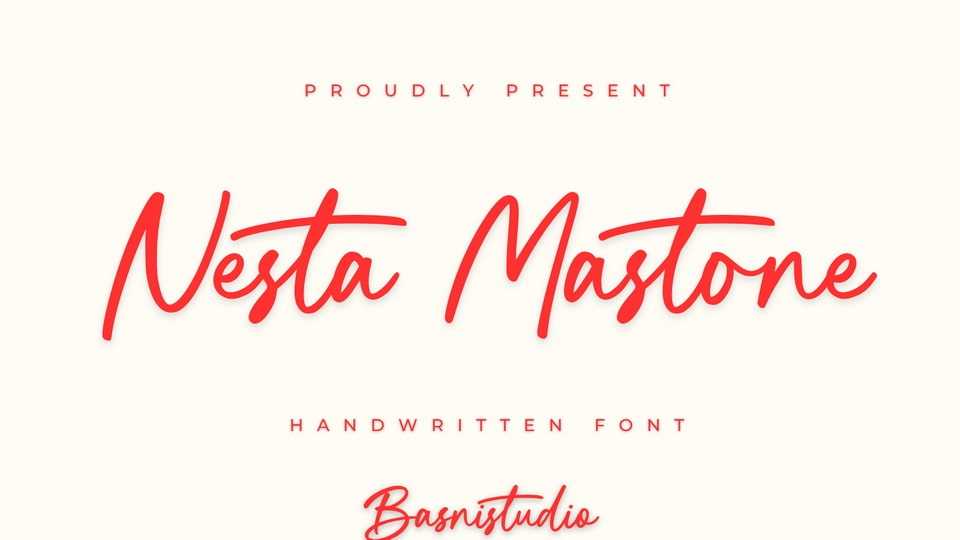
Download Nesta Mastone font, a handwritten typeface that adds an elegant, versatile touch to everything from branding and social media to invitations and packaging.